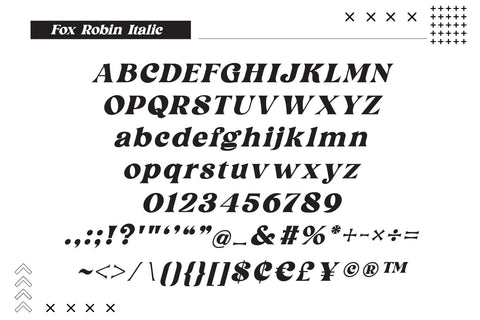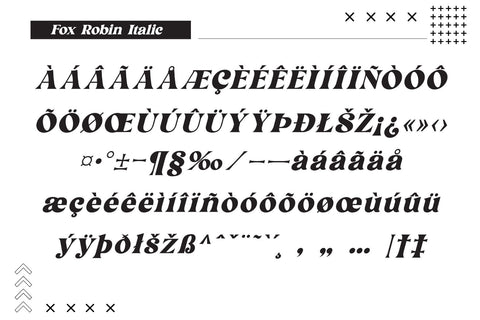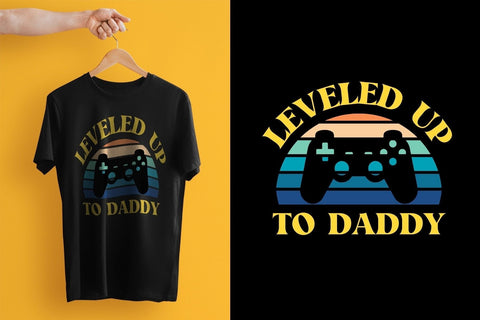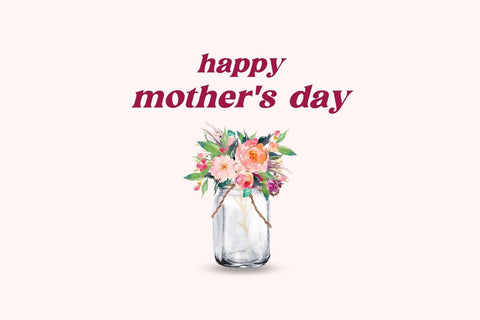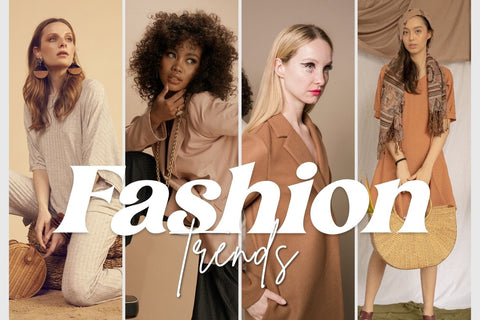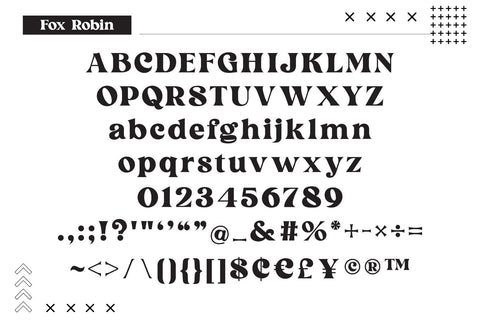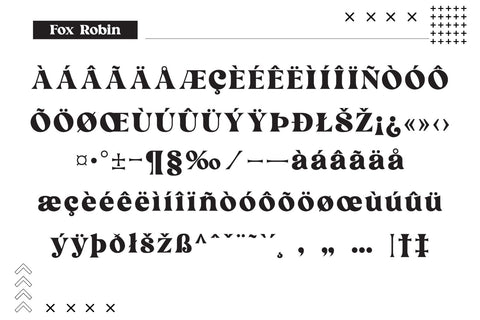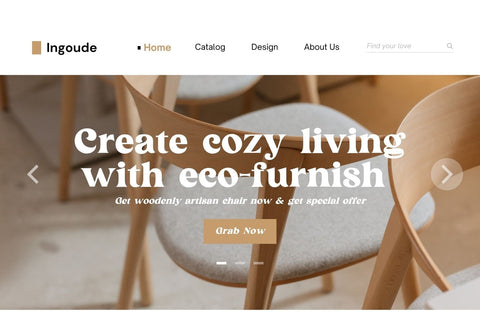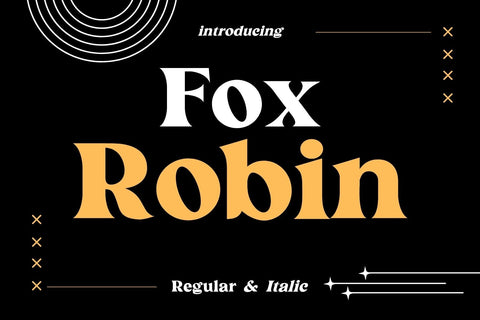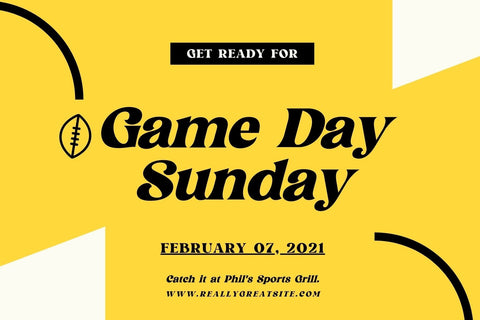
Fox Robin Font
Fox Robin Font is beautiful and designed to be versatile. Compatible with both modern and vintage design styles. You can use it for various projects, including blog posts, logos, branding, advertisements, invitations, greeting cards, planners, photo albums, decorations, and much more.